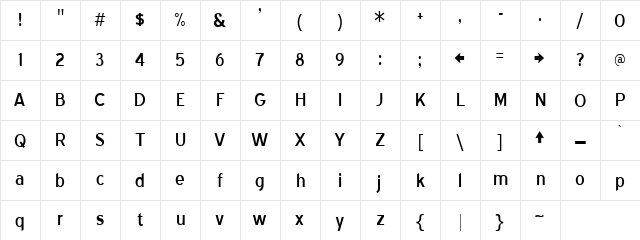
Platinum Punch Regular
Design Context for Platinum Punch Typeface
Platinum Punch is a composed and adaptable typeface that performs quietly and consistently across a wide range of design contexts.
Pro Tip: Use Platinum Punch in both headline and body roles to test its range before committing to a single application.